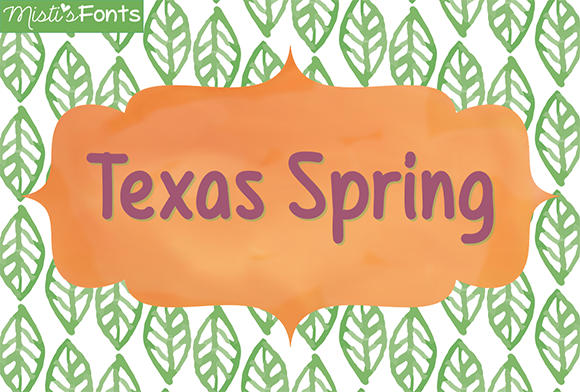
HomeScript FontsTexas Spring Font Script Fonts Texas Spring Font FacebookXPinterestWhatsApp About Texas Spring Font Texas Spring is a clean and simple font that is perfect for your design and craft projects! DOWNLOAD NOW People also explored Lovely Life Font Sanestu Font Mock-Up Farmhouse Sign Fox Boating 4 Fonts Style Font FormPattern Brush Craf Font Catalunya Font Ammy Kids Lo Font Dellyma Font 308 0 TagsTexas Spring Font Previous articleHeartfelt FontNext articleBehind Green Eyes Font LEAVE A REPLY Cancel reply Comment: Please enter your comment! Name:* Please enter your name here Email:* You have entered an incorrect email address! Please enter your email address here Website: Save my name, email, and website in this browser for the next time I comment. Personal Use Free Adventure Font Personal Use Free Read more about this font Satori Personal Use Free Read more about this font Oatmeal Personal Use Free Read more about this font Mounets Personal Use Free Read more about this font BLOG Free Fonts Risk: Why Free Fonts Can Be Dangerous for Designers Free Fonts Risk: Why Free Fonts Can Be Dangerous for Designers Using free fonts is a common practice in web and graphic design. However, the... Where to Buy American Fonts Online in 2024 Elegant Wedding Invitation Fonts – Handwritten & Script Fonts To increase your work productivity, choose the most readable fonts.